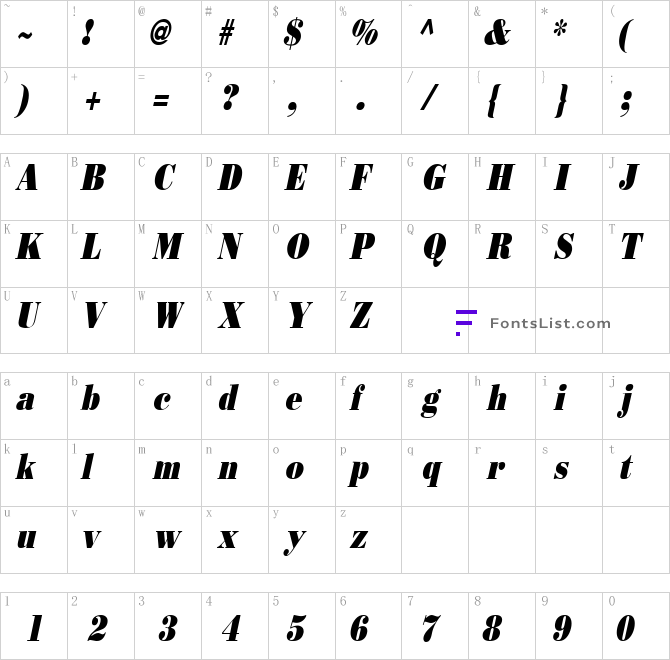
• Font Name:Beau Condensed
• Subfamily:Italic
• Subfamily:Altsys Fontographer 4.1 Beau Condensed Italic
• Full Name:Beau Condensed Italic
• PostScript:BeauCondensedItalic
Beau-Condensed-Italic.ttf is a very beautiful artistic font, Beau-Condensed-Italic.ttf is widely used in the design and printing of various books and pictures,Beau-Condensed-Italic.ttf has a strong visual impact,Beau-Condensed-Italic.ttf is a commonly used font in newspapers, magazines and books, and is used in posters, e-commerce Poster design, store design, logo design, font design and other fields.Beau-Condensed-Italic.